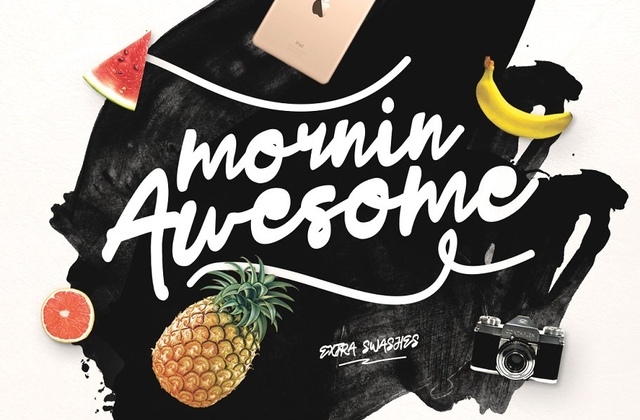
Mornin Awesome Font
Mornin Awesome Font is perfect for greeting cards, social media graphics, branding, poster designs, and invitations. Its cheerful and playful style adds a lively and friendly touch to any project.
What makes Mornin Awesome Font exciting is its bold, hand-drawn letterforms that combine readability with a vibrant, energetic personality. The font’s unique style ensures your text stands out with warmth and charm.
The Mornin Awesome Font family includes Regular, Bold, Italic, and Outline variations, giving designers flexibility to create engaging and visually appealing typographic compositions.